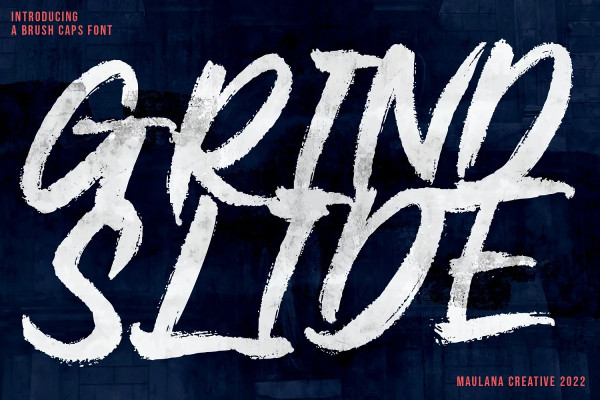
Grind Slide Font
Grind Slide Font is an expressive handwritten brush font. With rough brush stroke, fun character with a bit of ligatures and alternates. To give you an extra creative work. Grind Slide font support multilingual more than 100+ language. This font is good for logo design, Social media, Movie Titles, Books Titles, a short text even a long text letter and good for your secondary text font with sans or serif. Make a stunning work with GrindSlide font.